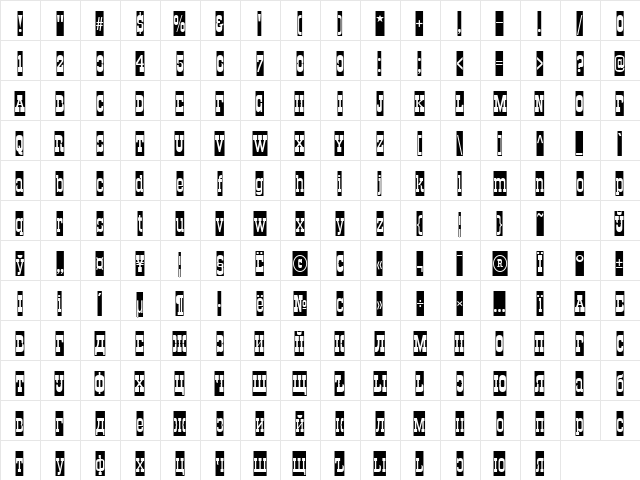
TraktirCameo Normal
Design Context for TraktirCameo Typeface
TraktirCameo takes a measured approach to typography — its balanced proportions and neutral character make it a reliable workhorse for both digital and print work.
Pro Tip: Use TraktirCameo in both headline and body roles to test its range before committing to a single application.